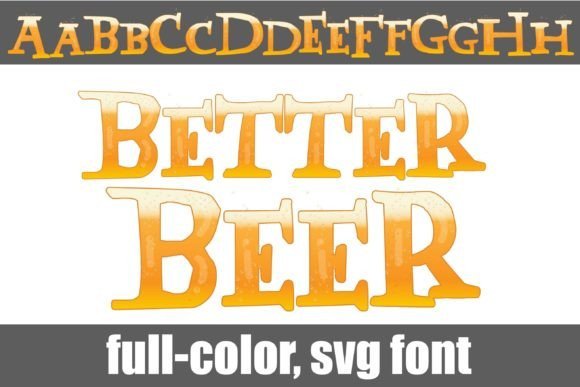
A Toast to Creativity: Introducing Better Beer Font
You’ve spent hours crafting the perfect beer label design, and it’s finally time to add the finishing touches. As you search for the perfect font to match the golden hues of your beer, you stumble upon it: Better Beer Font. This stunning full-color font features golden beer-like lettering that’s sure to elevate your design and leave a lasting impression on beer enthusiasts.
Better Beer Font Key Features
- Unique Characteristics: Includes custom-designed glyphs for beer-related terms and phrases
Better Beer Font Review
Overall, I’d say that Better Beer Font is a decent addition to any brewery or beer enthusiast’s brand arsenal. There are some nice touches that make it a solid choice for beer-related projects. ✨ For example, the font’s distressed look gives it a charming, vintage feel that’s reminiscent of old beer labels.
Some other things that I like about Better Beer Font include:
- Its wide range of languages supported, making it a great choice for international breweries
- Its high level of customization options, allowing users to fine-tune the font to their liking
Overall, I’d say that Better Beer Font is a solid choice for beer-related projects, but it’s not without its limitations. With a bit of tweaking and refinement, it has the potential to be a real winner. As it stands, it’s a decent option, but not necessarily a game-changer.
The Better Beer Font is perfect for beer-related designs, such as:
- Beer labels and packaging
- Beer menus and beer lists
- Beer-themed posters and prints
- Beer-related social media graphics
What is the recommended line spacing for the Better Beer Font in a typical beer label design?
The recommended line spacing for the Better Beer Font in a typical beer label design is between 120% and 140% of the font size. This line spacing ensures that the text is easy to read and visually appealing. However, the line spacing may vary depending on the specific label design, label material, and intended viewing distance.